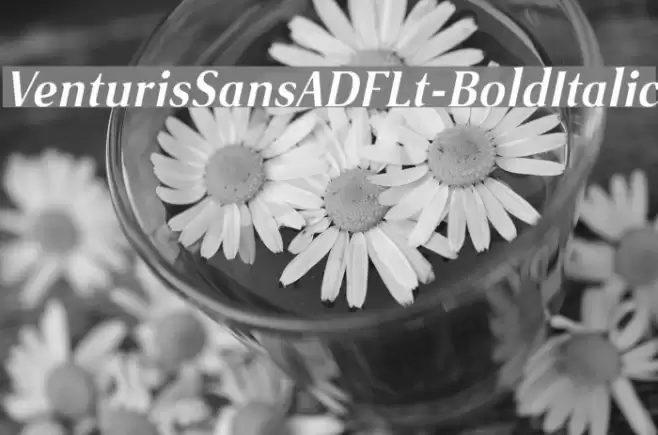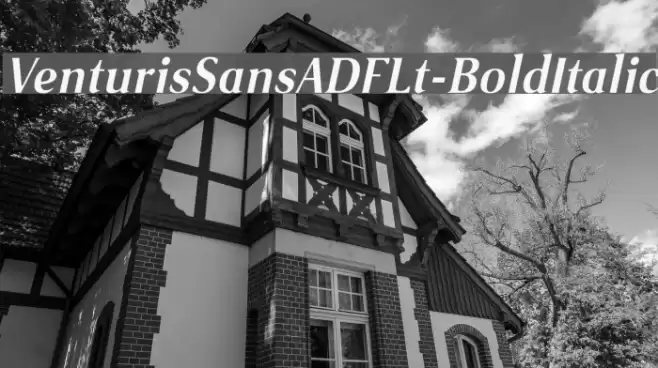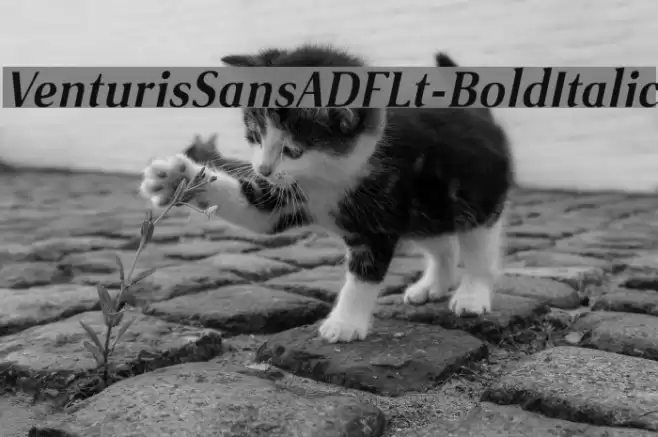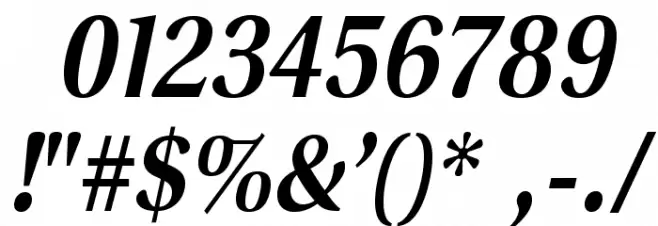
VenturisSansADFLt-BoldItalic Font
VenturisSansADFLt-BoldItalic Description
This font presents a sophisticated and elegant style with a modern twist. The italicized characters add a sense of motion and fluidity, making it suitable for dynamic and engaging designs. The bold weight ensures that the text stands out, providing a strong visual impact. The characters are well-proportioned, with a slight slant that enhances readability while maintaining a stylish appearance. The font features a medium contrast in stroke thickness, which adds to its versatility across various design applications. The spacing between characters is normal, allowing for clear legibility without appearing cramped or overly spaced.
A bold italic font with modern elegance and medium contrast, ideal for dynamic designs from Uncategorized fonts.
- Proposed Projects: Ideal for branding, advertising, editorial design, and digital media where a modern and impactful look is desired.
- Use Case: Headlines, Logos, Branding